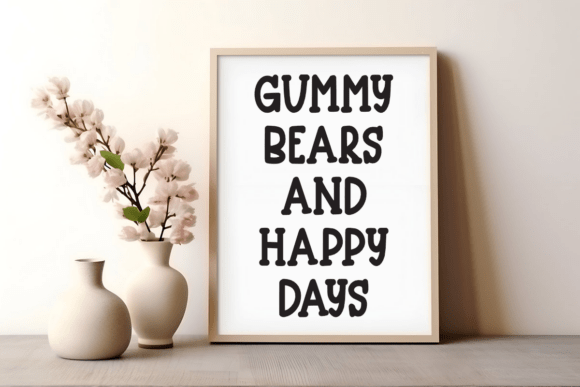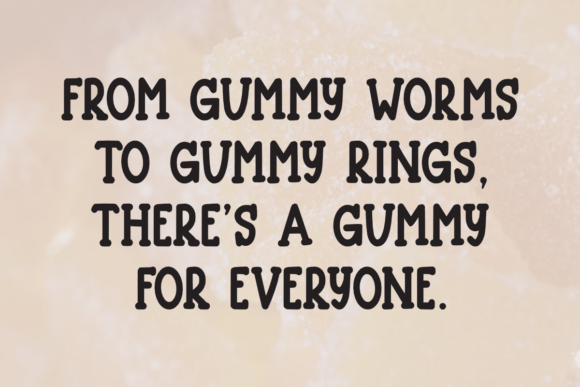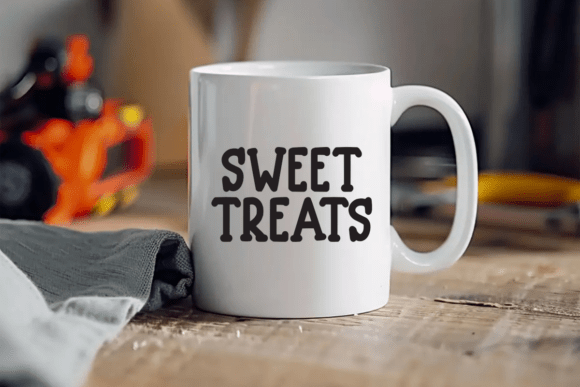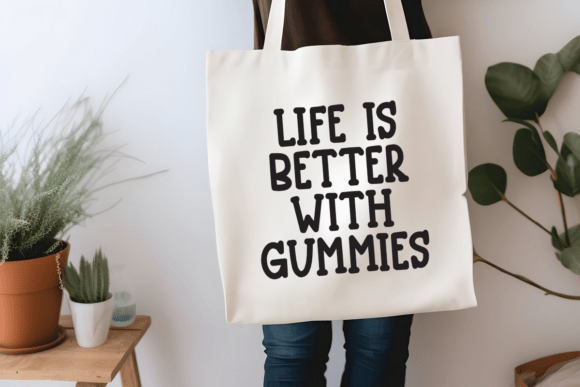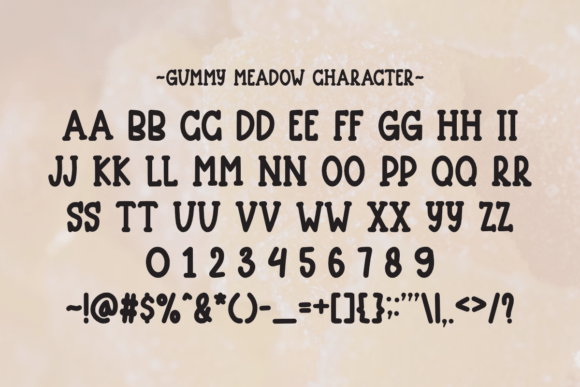
Introduction to Gummy Meadow Font Font
Fonts play a crucial role in design, and the Gummy Meadow Font font is a typeface that brings both character and versatility to any project. Whether you’re working on a branding project, a website, or a print design, the Gummy Meadow Font font offers a unique style that can elevate your work.
Gummy Meadow is a playful slab serif font that brings a burst of charm and sweetness to your designs.
With its rounded terminals and candy-inspired character, itβs perfect for childrenβs projects, snack packaging, logos, and any layout that craves a fun, bouncy look This font makes your words feel as soft and delightful as a gummy treat.
Key Features of Gummy Meadow Font Font
Why Choose Gummy Meadow Font Font?
The Gummy Meadow Font font is more than just a typeface β it’s a design tool that helps you communicate your message with style and clarity. Its unique character set and versatile design make it suitable for a wide range of applications, from elegant invitations to bold headlines.
With its carefully crafted letterforms and balanced proportions, the Gummy Meadow Font font ensures readability and visual appeal across all mediums.
What makes Gummy Meadow Font font special?
The Gummy Meadow Font font stands out with its unique design, exceptional readability, and versatility across various design applications.